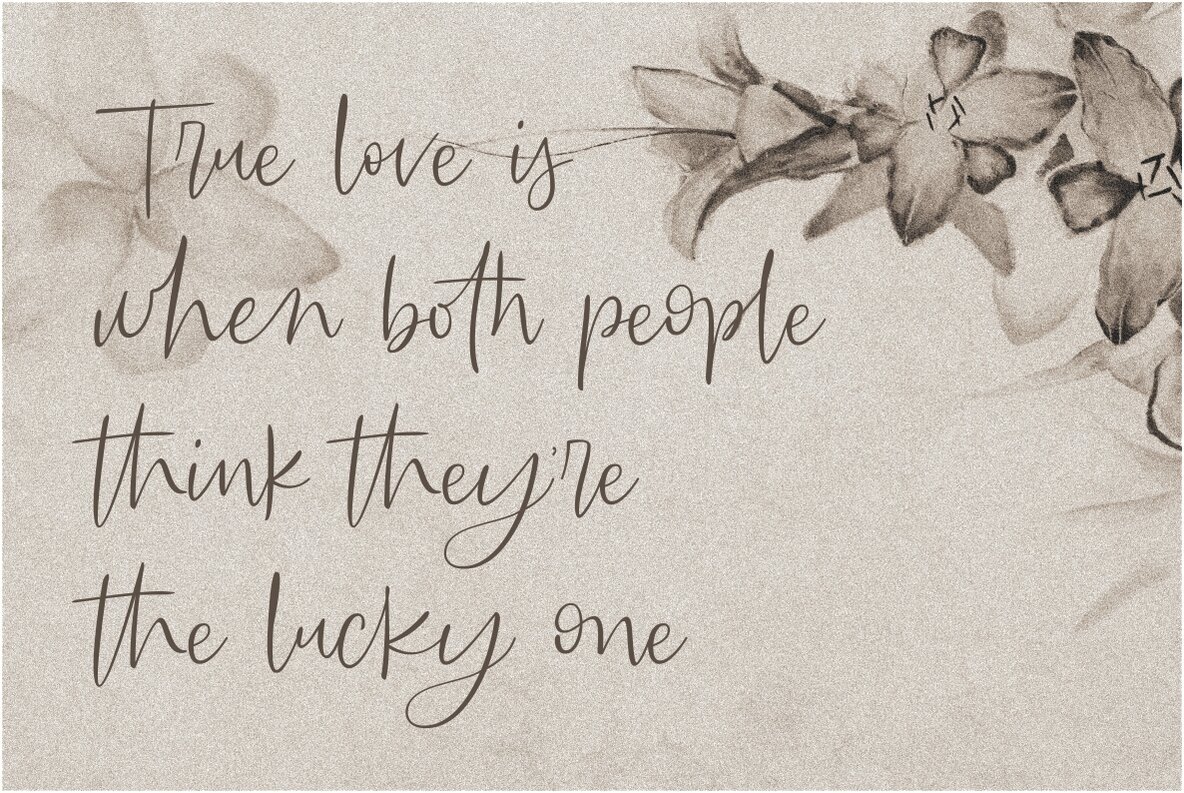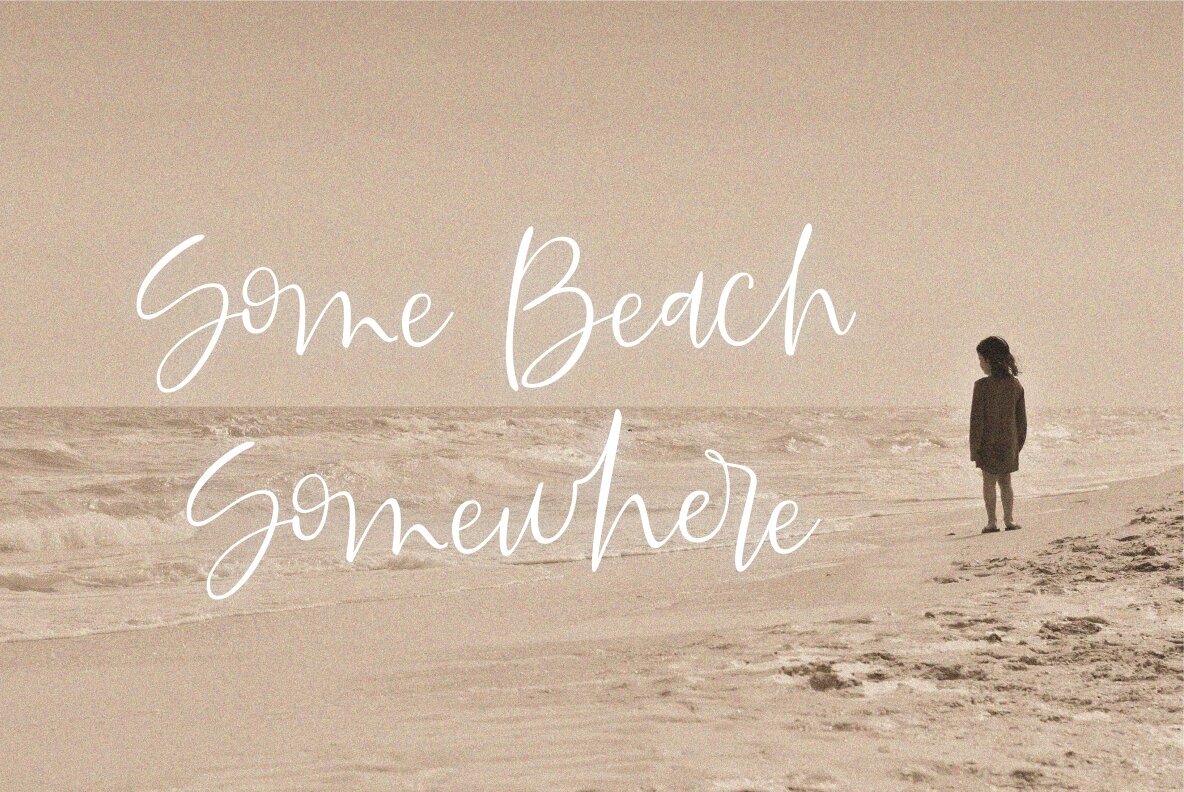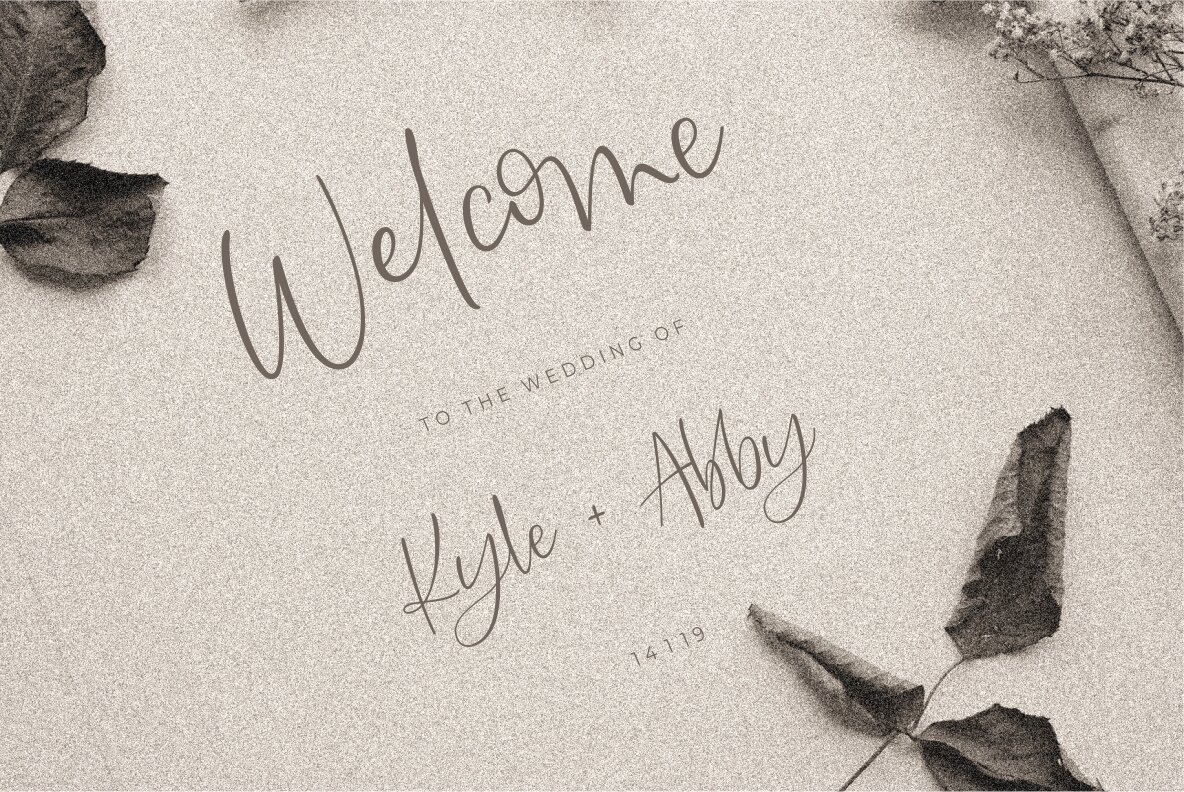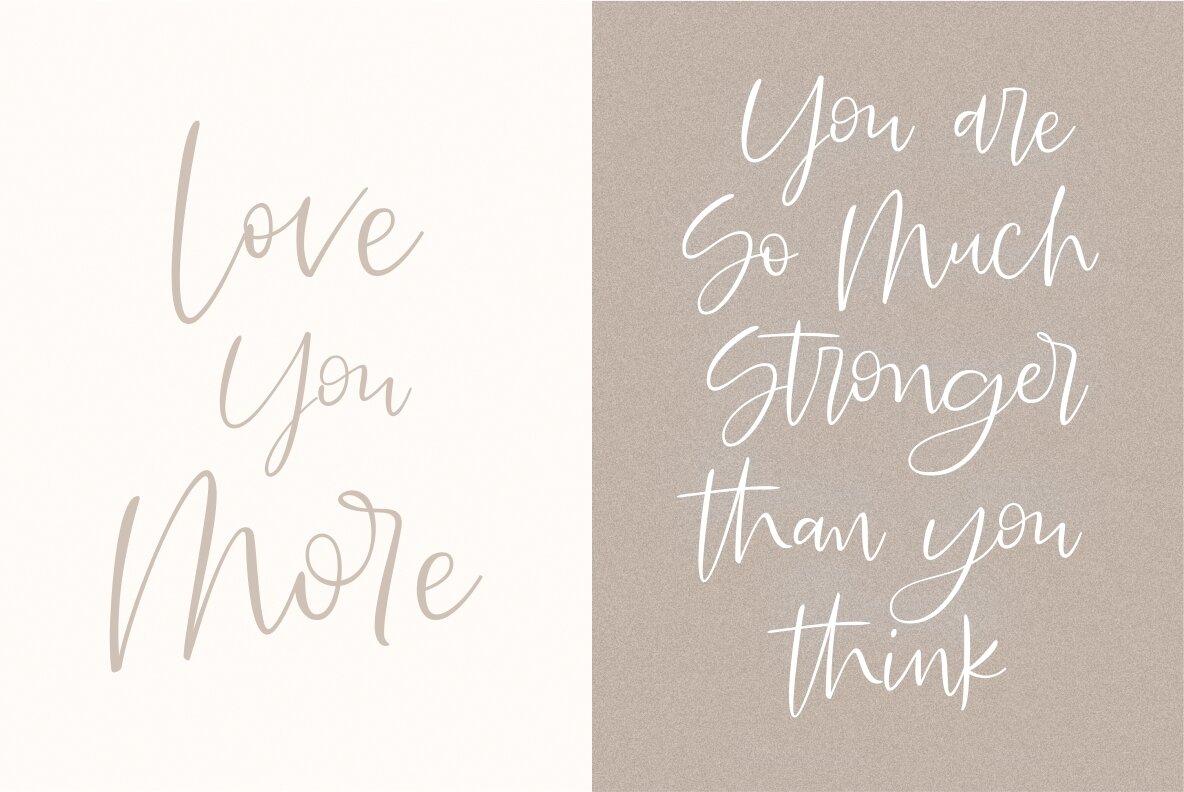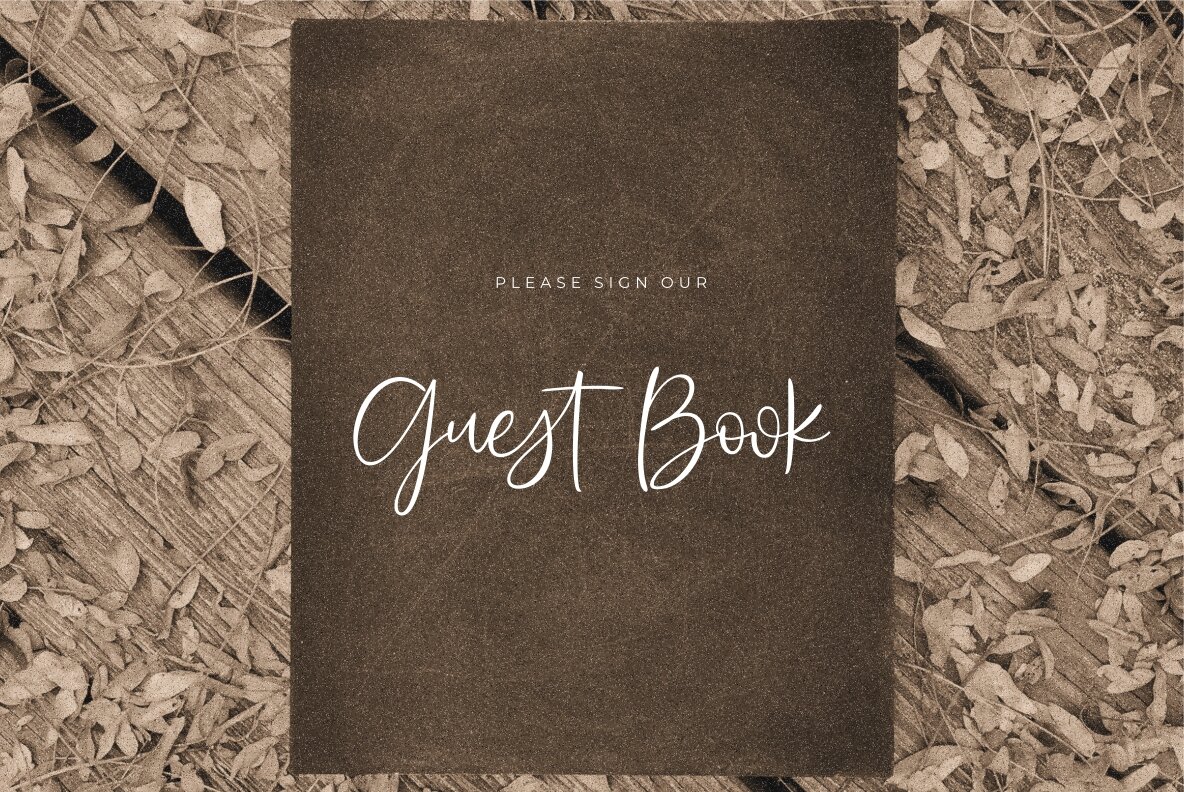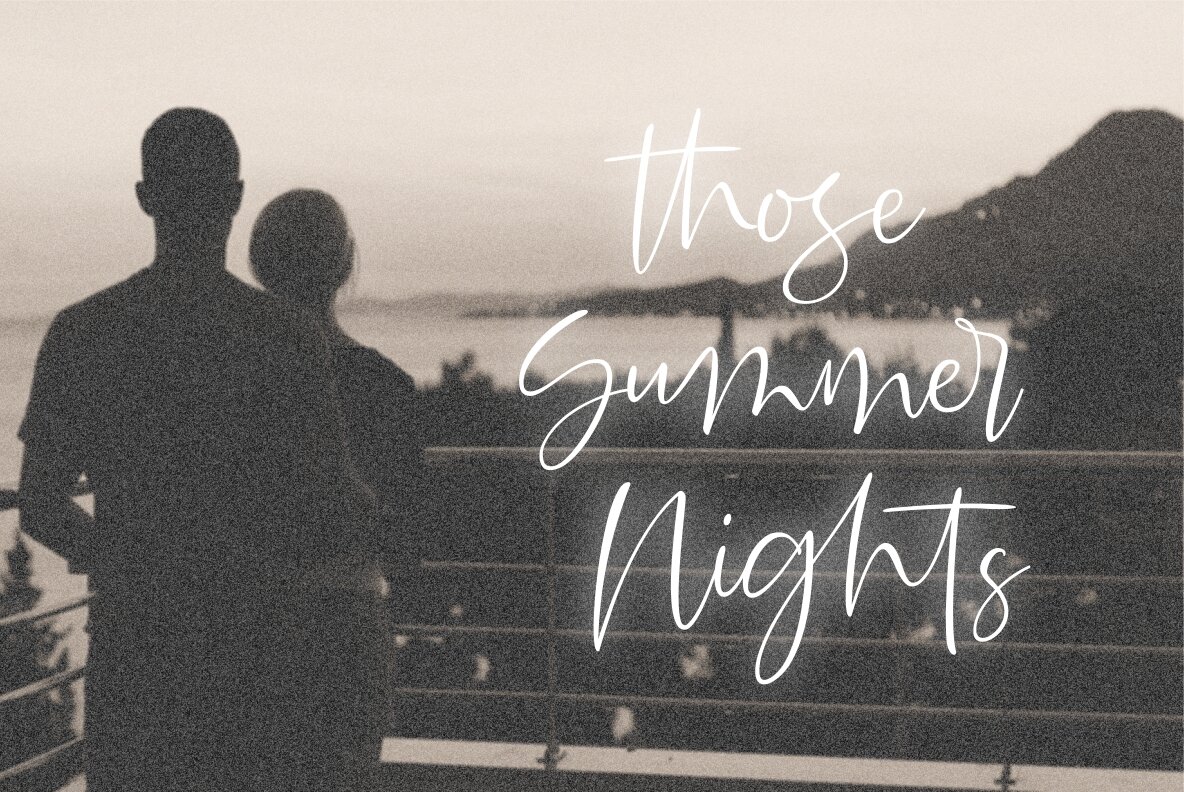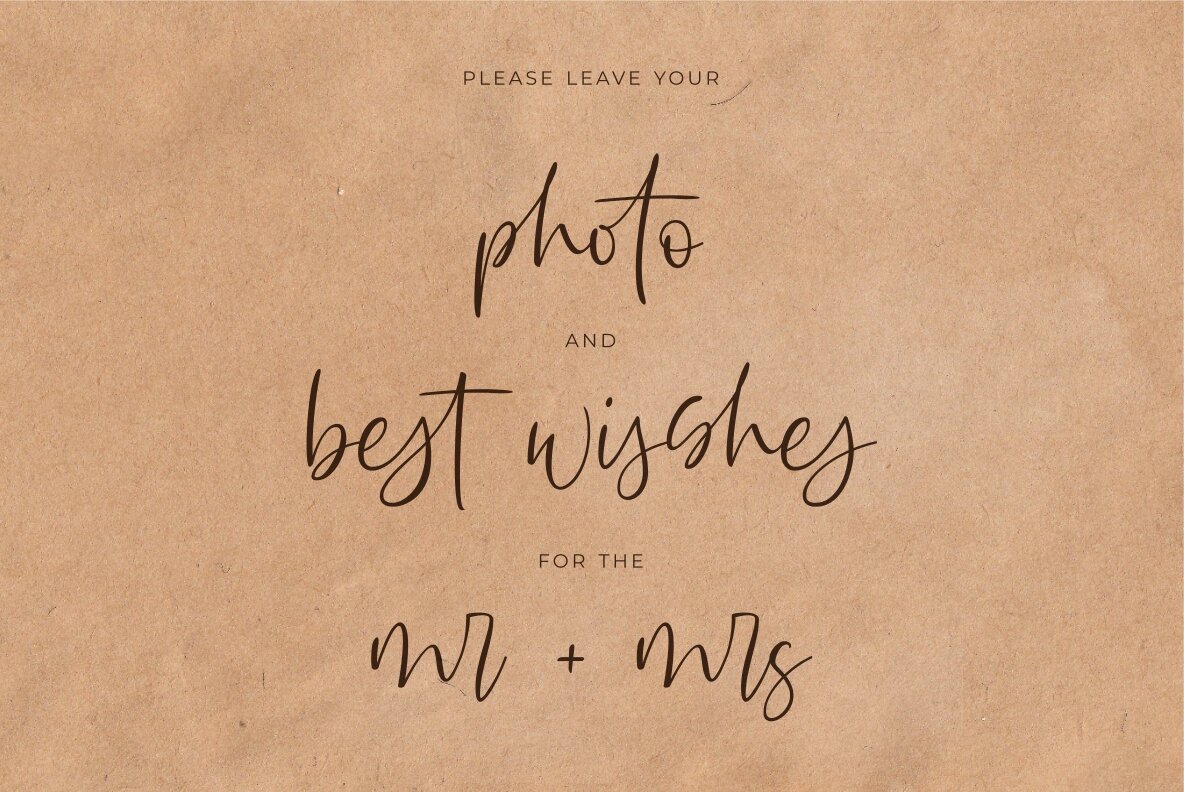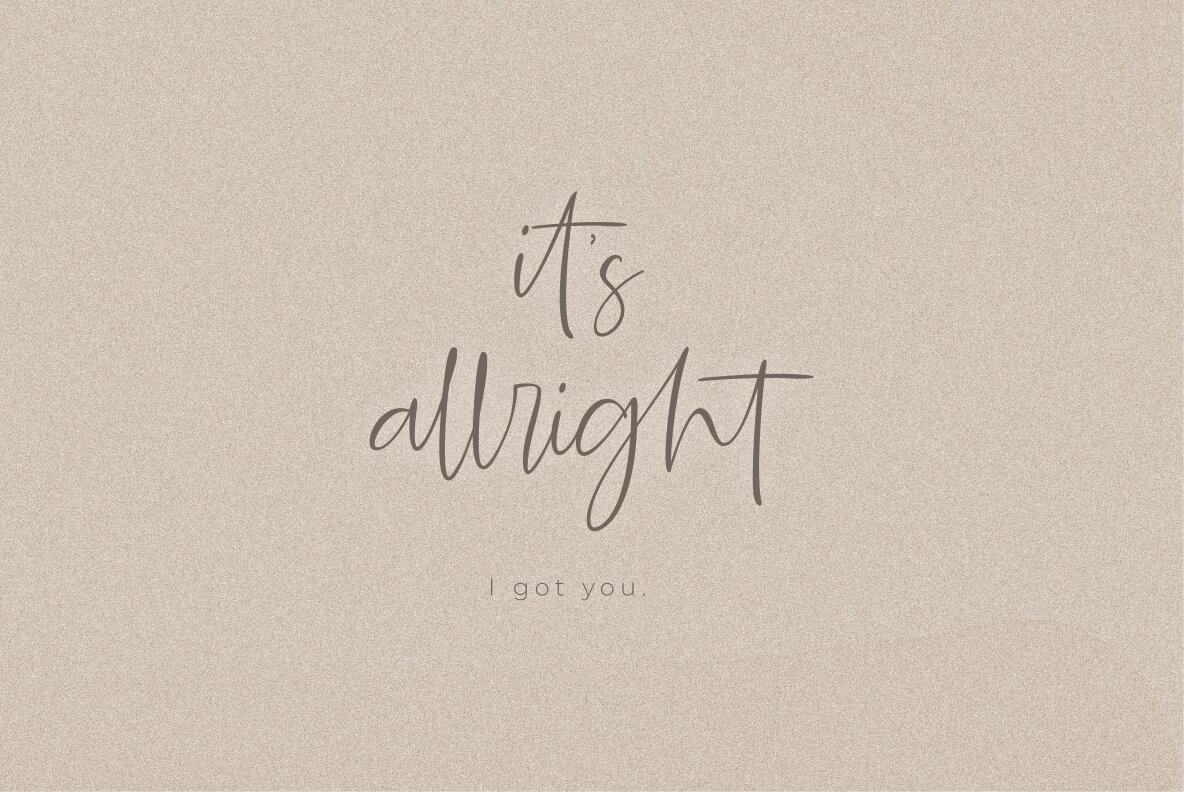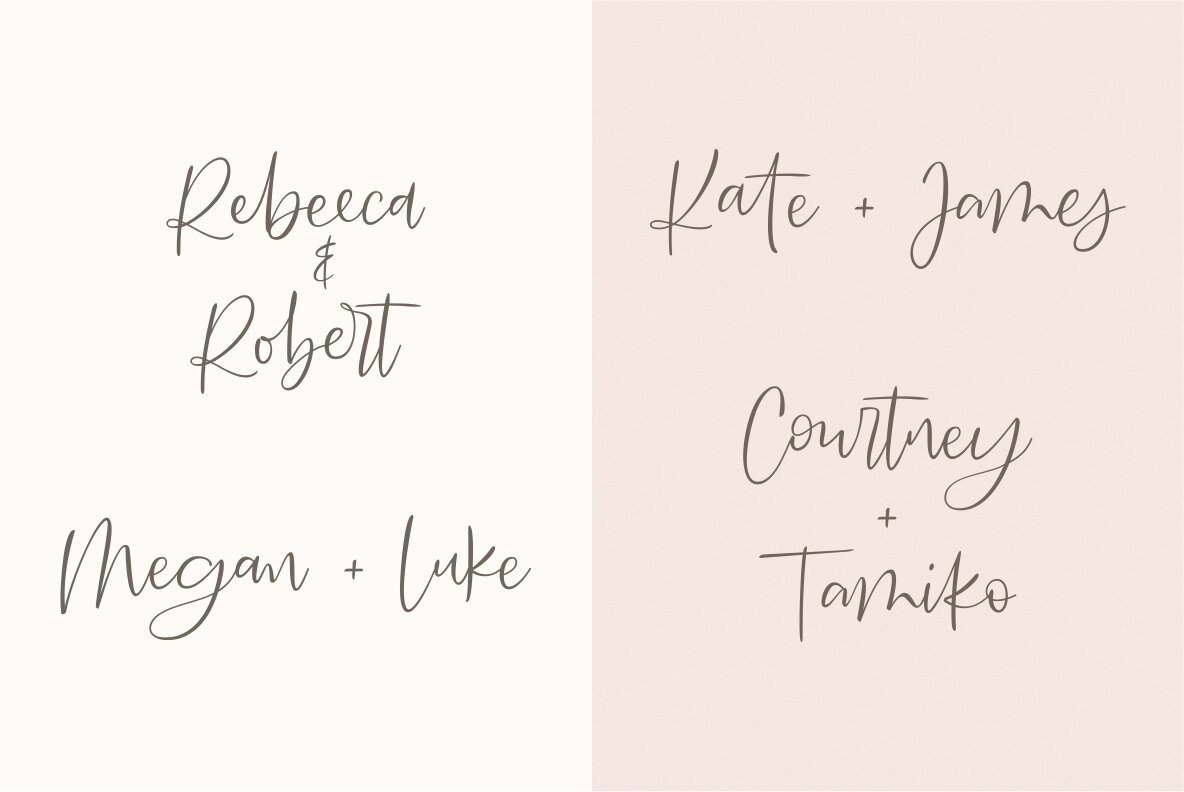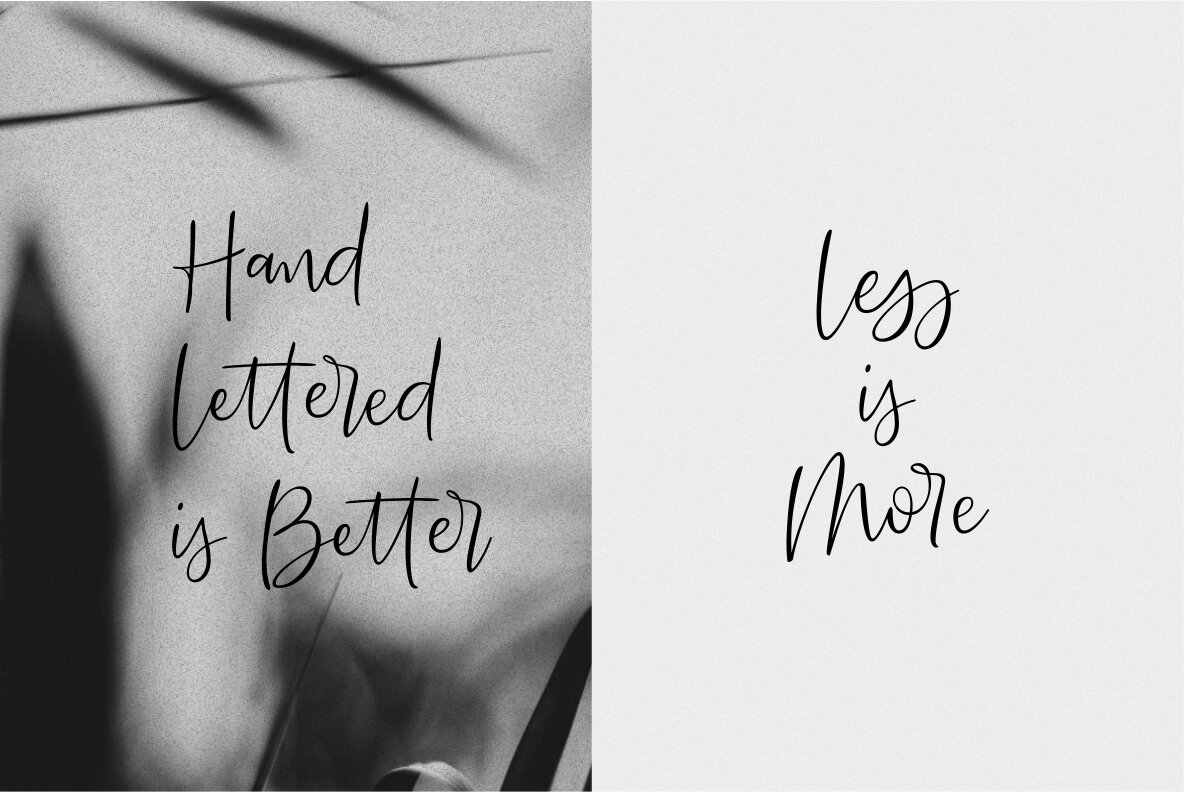
Searches Font
Searches
Searches is a font that you should give a chance, if you are looking for a different look, Searches is a good place to start! There is always inspiration in fonts! Searches is an elegant, messy and lovely script. But Searches is not your ordinary script font; it has been developed to perfection by its creator, and it is sure to inspire you as well. You will fall in love with the movement of the letters, and you will find yourself using this font for many design projects to come. It comes with 92 ligatures, numbers, and other necessary glyphs.
Searches features:
- A full set of upper & lowercase characters
- Numbers & punctuation
- 92 Gorgeous ligatures
- accents characters